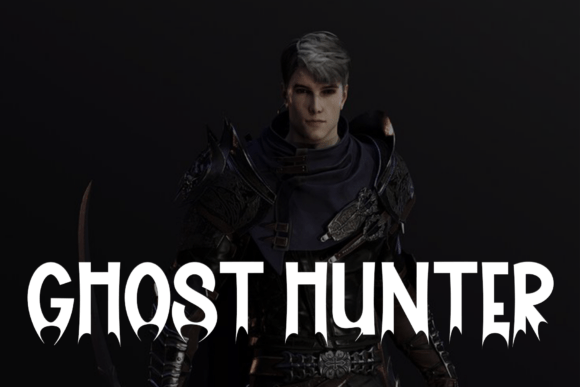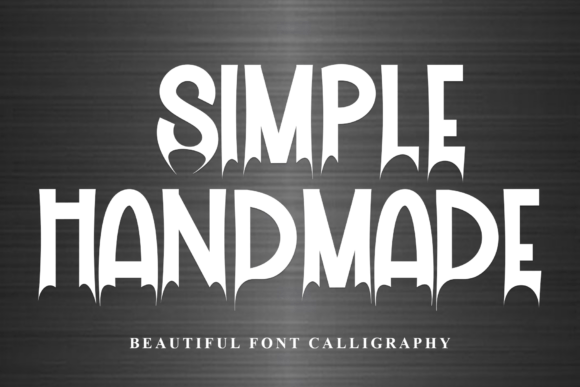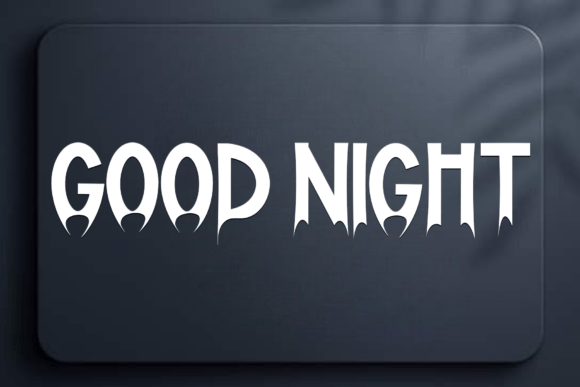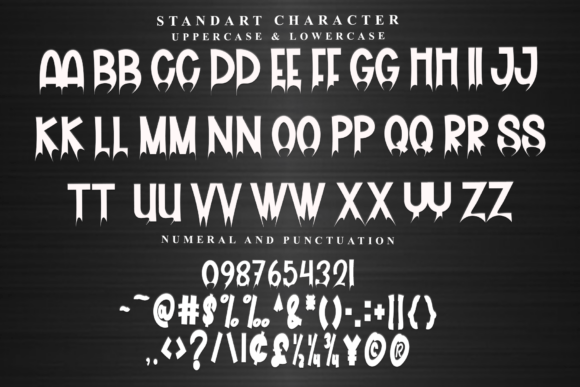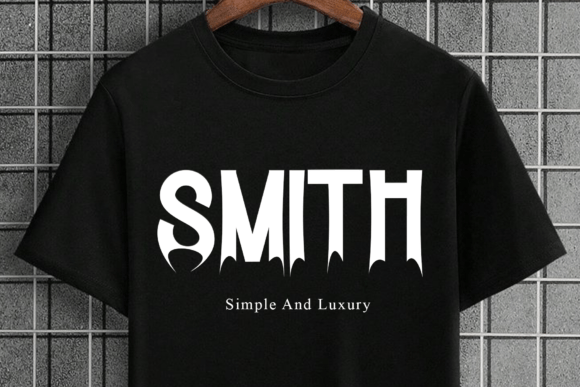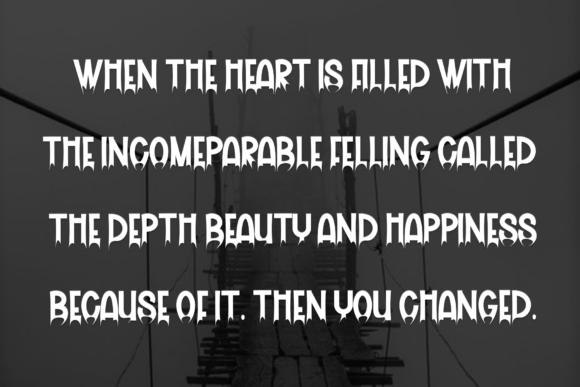
The Perfect Font for Creative Projects: A Deep Dive into Black Hunter
I’ll never forget the time I was working on a project for a client’s birthday party invitation. I had the design concept nailed, but I just couldn’t find the right font to bring it all together. The client wanted something fun, playful, and approachable, but not too formal. That’s when I stumbled upon Black Hunter, a casual and creative font that exudes warmth and friendliness. In this article, I’ll share my experience with Black Hunter, its features, and how to make the most of it in your designs.
First Impressions: What I Love About Black Hunter
Black Hunter is a charming, hand-drawn font that adds a fun and unique touch to any design. Here are some things I love about it:
- ✨ Round, playful strokes create a relaxed and approachable feel
- ✅ Perfect for personal projects, invitations, and social media graphics
- 👍 Friendly and casual vibe that’s perfect for a wide range of design projects
Honest Review: The Not-Perfect-but-Almost Section
No font is perfect, and Black Hunter has its quirks. Here are a few things to keep in mind:
- 🤔 Limited use in very formal or professional designs, as it may come across as too casual
- ⚠️ May not be the best choice for very long blocks of text, as it can be a bit tricky to read
The Story Behind Black Hunter
Black Hunter was designed with the intention of creating a font that exudes warmth and friendliness. The designer wanted to create a font that would be perfect for personal projects, invitations, and social media graphics. With its round, playful strokes and charming, hand-drawn aesthetic, Black Hunter is sure to bring a fun and unique touch to any design.
| What is Black Hunter font? | Black Hunter is a casual and creative font that exudes warmth and friendliness. |
| What is Black Hunter best used for? | Black Hunter is perfect for personal projects, invitations, and social media graphics. |
| Is Black Hunter easy to read? | Black Hunter is generally easy to read, but may be a bit tricky for very long blocks of text. |